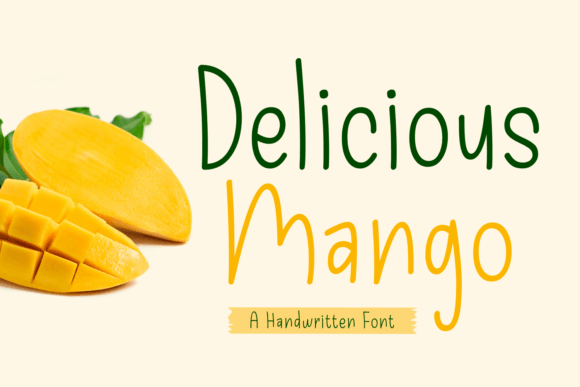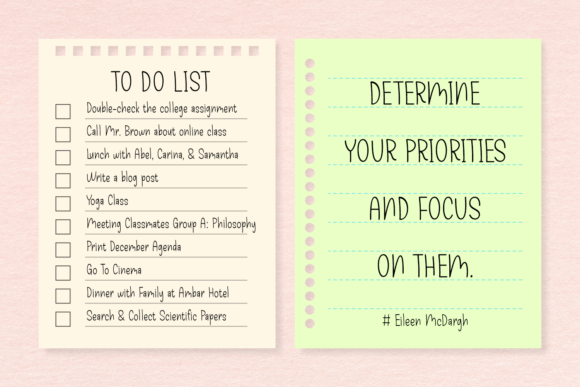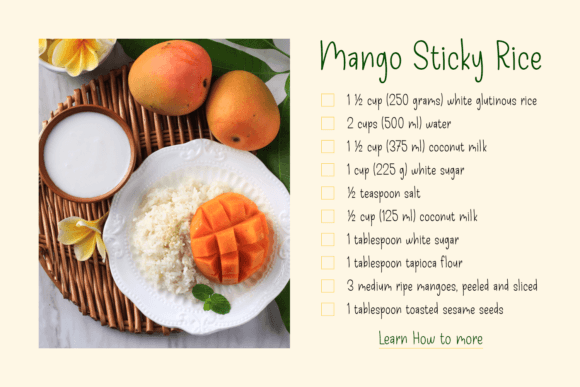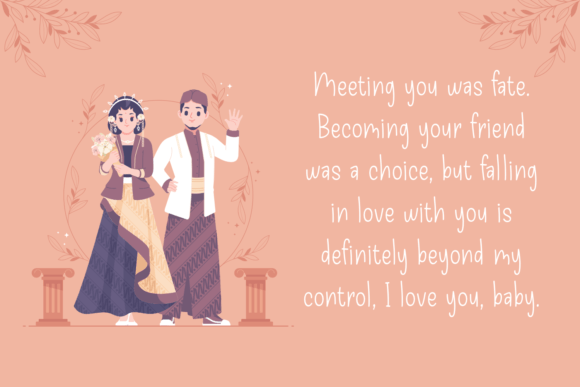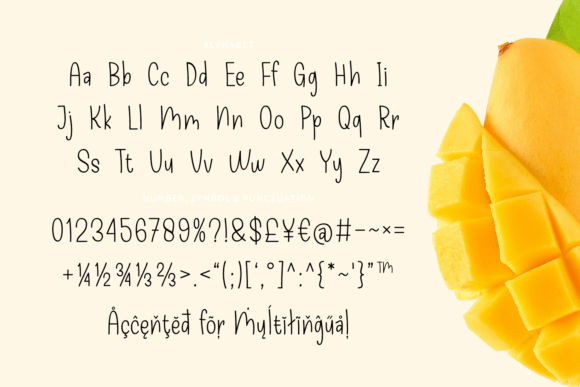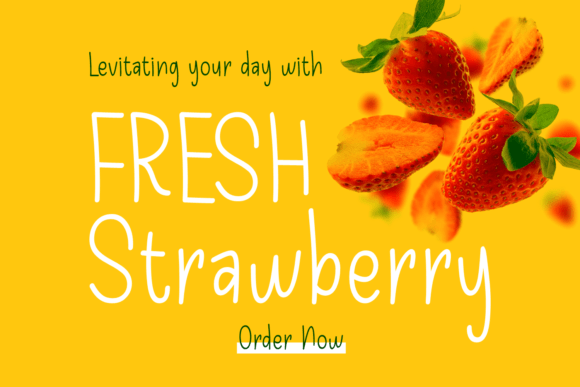
Delicious Mango Font
About Delicious Mango Font
Bring a sweet touch of personality to your designs with the Delicious Mango Font download. This cute and casual handwritten font blends modern playfulness with timeless charm. Whether you’re designing for a brand, personal project, or seasonal campaign, Delicious Mango adds a lighthearted and distinct character to your work.
Crafted with smooth strokes and a naturally flowing structure, this font makes your text feel friendly, warm, and engaging. Its simplicity allows for excellent readability while still maintaining a whimsical flair. If you’re looking for a handwritten script that feels both charming and usable, this is the perfect pick.
Where to Use Delicious Mango Font
The Delicious Mango Font download works across many types of creative applications, including:
• Logo and brand identity design
• T-shirt designs and product packaging
• Printable art, greeting cards, and wedding invites
• Blog headers and social media graphics
• Craft projects, Cricut designs, and custom merchandise
Thanks to its well-balanced character set and casual aesthetic, Delicious Mango enhances any project that needs a touch of sweetness and style.
• Cute and casual handwritten script
• Timeless style with excellent legibility
• Ideal for both print and digital use
• Includes uppercase, lowercase, punctuation, and symbols
The Delicious Mango Font download offers a perfect blend of charm and usability, making it a must-have for font enthusiasts and designers alike.
Add a fresh, sweet vibe to your designs with the Delicious MangoFont download. Whether you’re working on a cheerful invitation or a personalized product, this font delivers playful energy with professional balance.